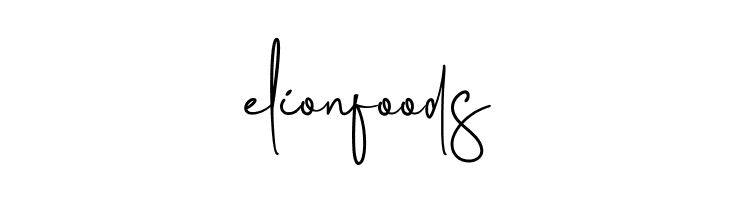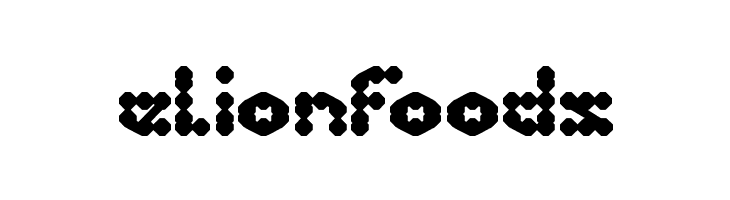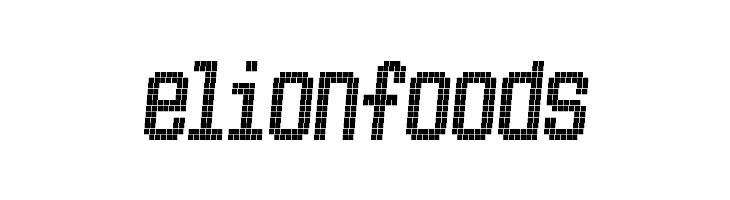
• phaser five
( Fonts by Press Gang Studios - Andeh Pinkard - www.pressgang-studios.com )
• Phelps
A bold, condensed font with strong vertical emphasis and modern appeal.
• Phelps Bold
A bold, modern font with wide characters and a strong presence.
• Phelps Bold Italic
A bold, italicized font with a dynamic and modern style.
• Phelps Italic
A bold, italic, and condensed font with a modern and dynamic style.
• PHENOMENON
A bold, modern font with characters formed by interconnected dots, offering a playful and digital aesthetic.
• Photography Signature
A modern handwritten font with fluid, elegant strokes and a personal touch.
• PICKSUHL
( Fonts by Jeff Bensch )
A pixelated, retro-style font with a digital, geometric look.